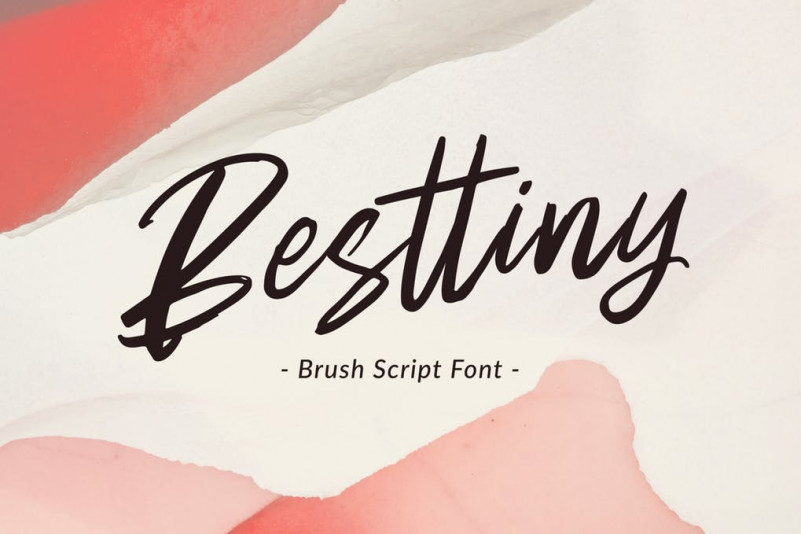
Besttiny Font
Introducing Besttiny – Brush Script, script with unique strokes make it beautiful and look natural as written by hand.
Besttiny is perfect for signature, branding, wedding, fashion, photography title, poster, social media, music album, book cover, packaging, handwritten quotes, greeting cards, and advertising.